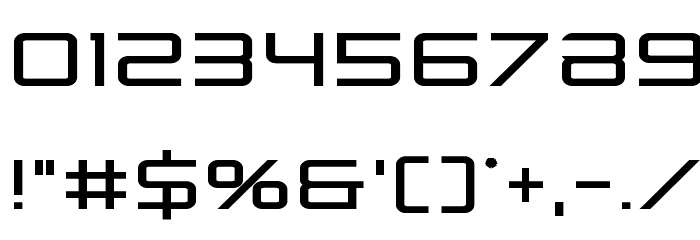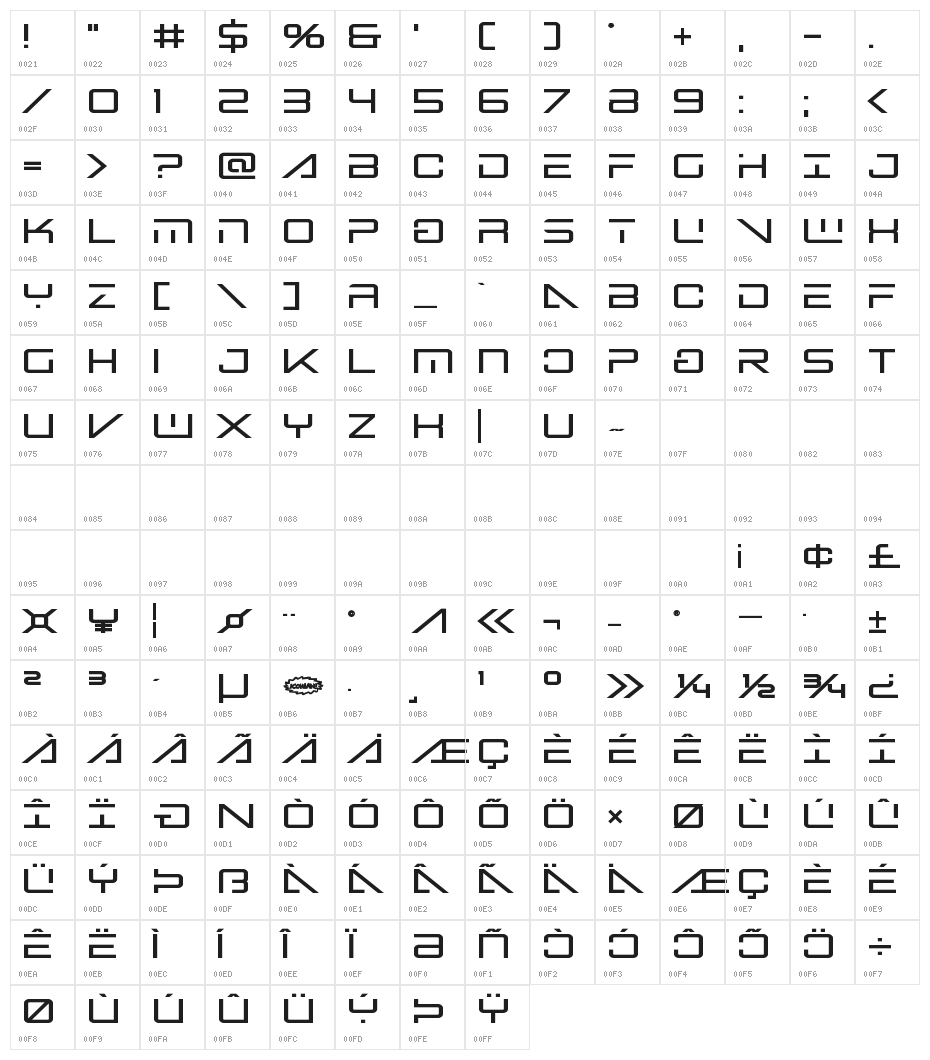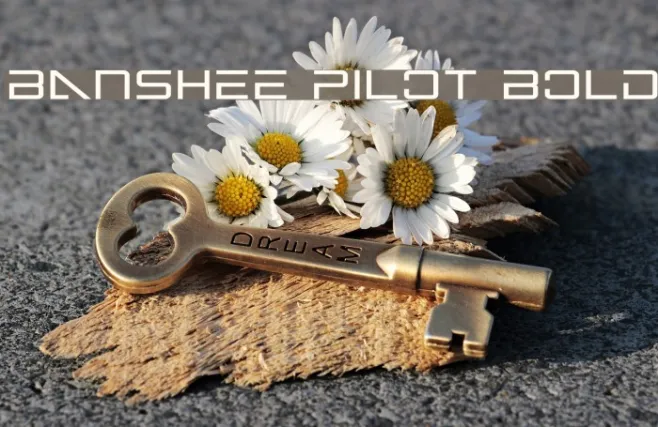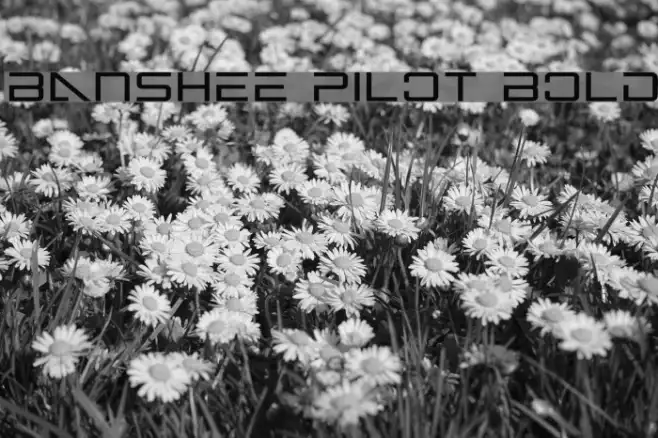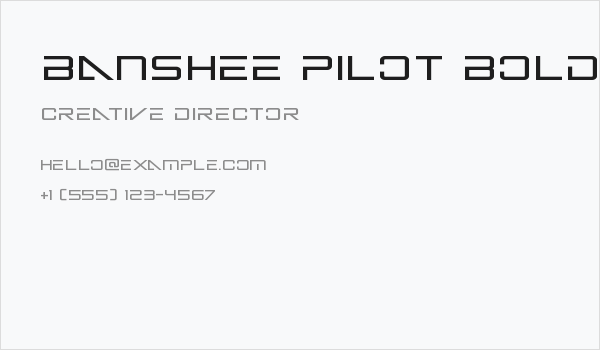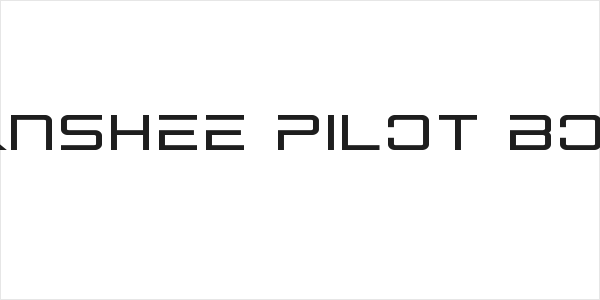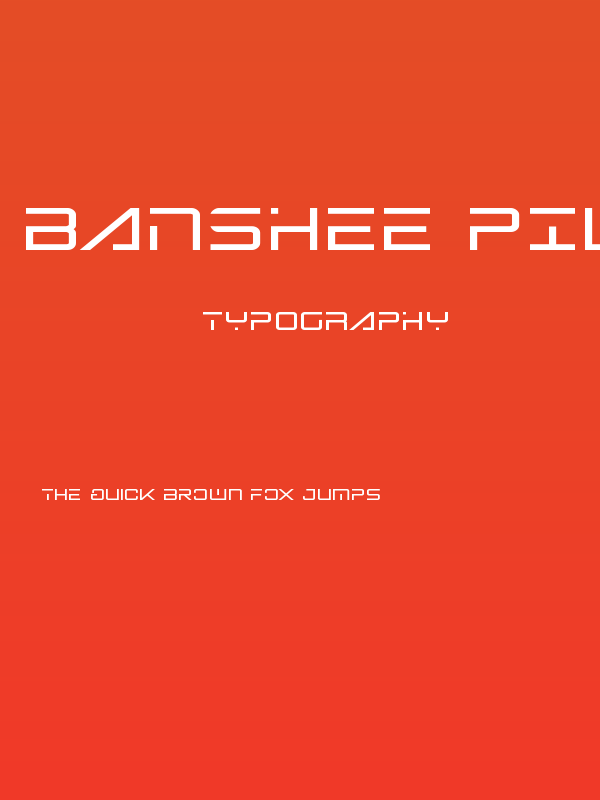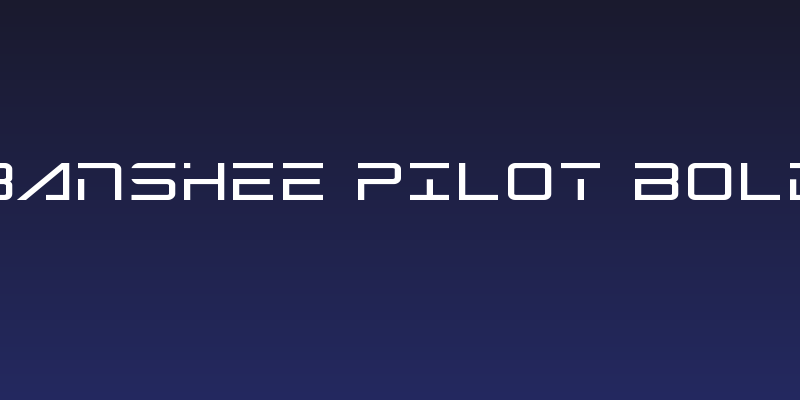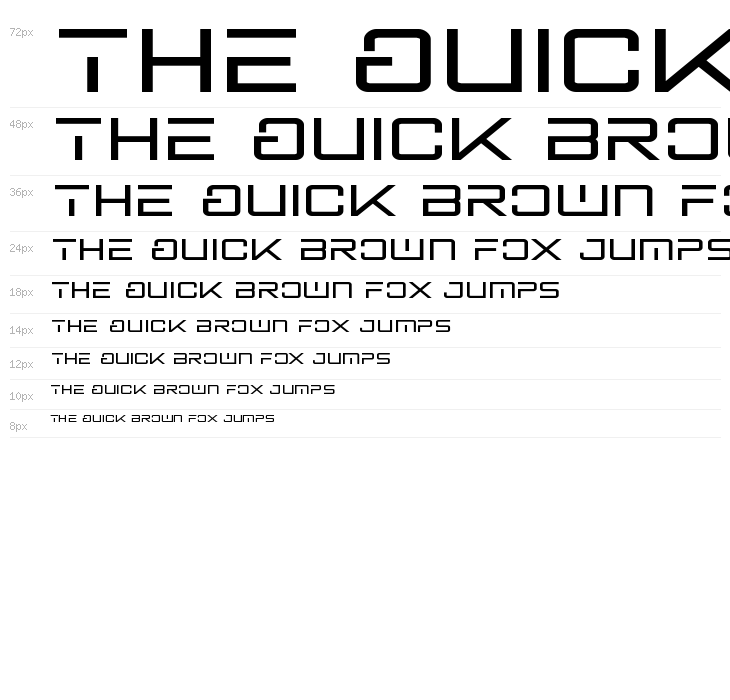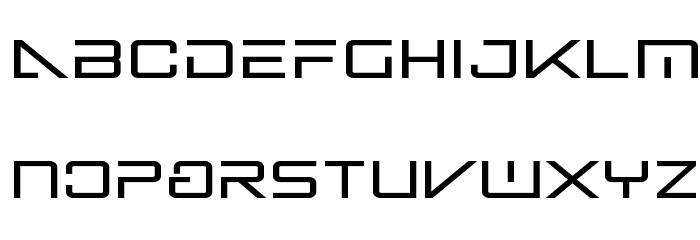
This font features a futuristic and geometric design, characterized by its angular and sleek letterforms. The uppercase and lowercase letters maintain a consistent height, creating a uniform appearance. The font exhibits a modern aesthetic with its sharp edges and minimalistic style, making it suitable for contemporary design projects. The numerals are clear and distinct, matching the overall angular theme. Special characters are included, providing versatility for various design needs. The font's bold weight enhances its presence, making it ideal for attention-grabbing headlines or titles.
| Proposed Projects | Ideal for sci-fi themed designs, technology branding, video game interfaces, and modern advertising. |